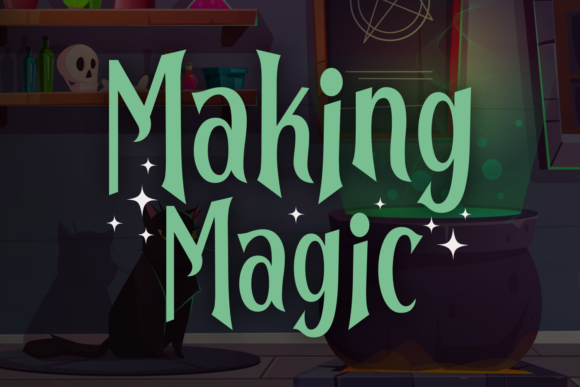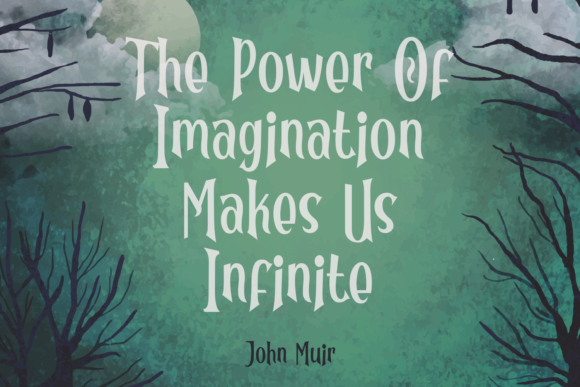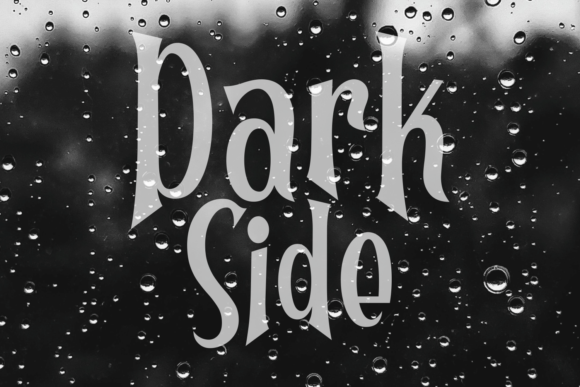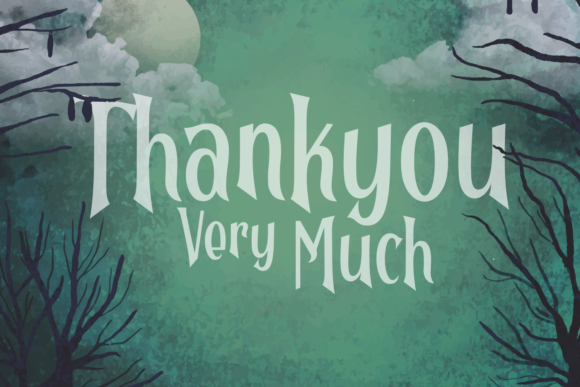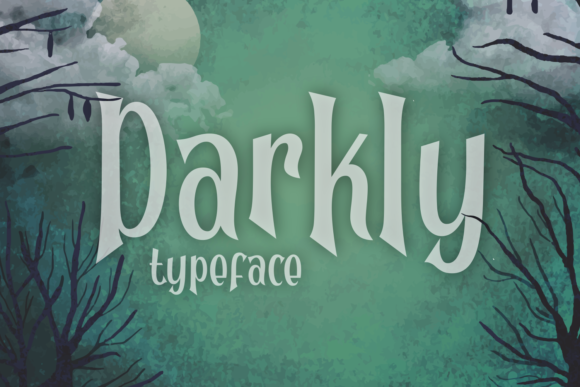
Unleash the Spookiness: Exploring the Darkly Font
As the witching hour approaches, designers and crafters are on the lookout for the perfect typography to add a touch of spookiness to their Halloween projects. Look no further than the Darkly Font, a cute display font that embodies the eerie and mysterious spirit of the season. In this article, we’ll dive into the world of Darkly Font, exploring its features, uses, and benefits for designers and crafters alike.
A Font that Casts a Spell
Darkly Font is a display font that boasts a unique, spooky look that’s sure to cast a spell on your audience. Its distinctive characters are carefully crafted to evoke the eerie and mysterious atmosphere of Halloween, making it the perfect choice for any project that requires a touch of macabre whimsy. Whether you’re designing a haunted house invitation, a spooky party flyer, or a creepy crafts tutorial, Darkly Font is sure to add an extra layer of excitement and intrigue.
Standout Performance
One of the standout features of Darkly Font is its versatility. Whether you’re using it as a standalone headline or incorporating it into a busy design, this font is sure to shine. Its bold, eye-catching letters are designed to grab attention and hold it, making it perfect for use on a variety of backgrounds, from dark and moody to bright and bold. With Darkly Font, you can create a design that’s sure to stop scrollers in their tracks and leave a lasting impression.
Crafting with Darkly Font
Darkly Font isn’t just limited to digital design; it’s also perfect for crafters who love to get creative with their Halloween projects. Imagine using this font to create spooky signs, eerie banners, or creepy crafts that will add a touch of personality to your Halloween decor. With Darkly Font, you can take your crafting to the next level and create projects that are sure to impress your friends and family.
Why Designers Love Darkly Font
So, what makes Darkly Font a favorite among designers? For starters, its unique and quirky style sets it apart from more traditional fonts, making it perfect for designers who want to add a touch of personality to their work. Additionally, its versatility and legibility make it easy to use in a variety of contexts, from digital designs to print materials. Whether you’re a seasoned designer or just starting out, Darkly Font is a great addition to your font library.
Tips for Using Darkly Font
To get the most out of Darkly Font, here are a few tips to keep in mind:
- Use it sparingly: Darkly Font is a bold and eye-catching font, so use it sparingly to avoid overwhelming your design.
- Pair it with contrasting fonts: Pair Darkly Font with a more traditional font to create visual interest and add depth to your design.
- Experiment with colors: Darkly Font looks great in a variety of colors, so don’t be afraid to experiment and find the perfect hue for your design.
In conclusion, Darkly Font is a unique and versatile font that’s perfect for designers and crafters looking to add a touch of spookiness to their Halloween projects. With its bold and eye-catching letters, this font is sure to cast a spell on your audience and leave a lasting impression. Whether you’re designing a haunted house invitation or creating spooky crafts, Darkly Font is a great choice for anyone looking to unleash their creativity and add a touch of personality to their work.